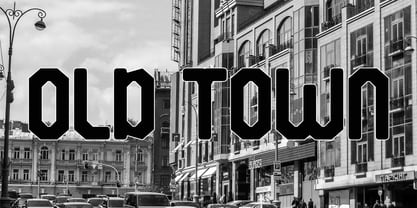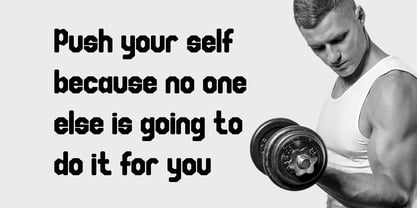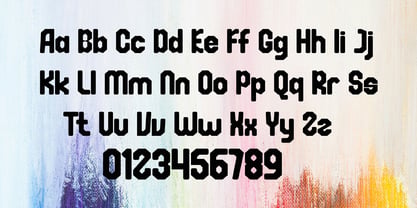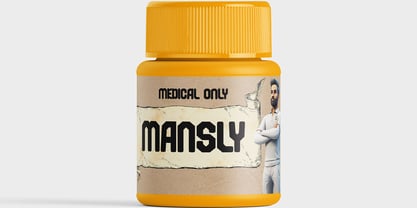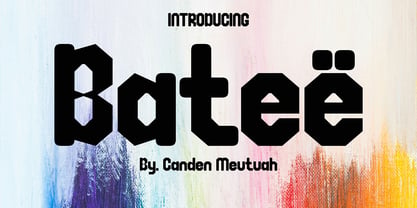
Bateë
by Canden Meutuah
The Bateë Font Family was designed by Canden Meutuah and published by Canden Meutuah. Bateë contains 1 styles. More about this family
Bateë is a stunning sports font featuring wide, bold letters and a modern, dynamic design. This font is ideal for high-speed car racing titles, running competitions, cycling, automotive game logos, monograms, and other sports-related projects that require bold typography. It is also suitable for posters, logo designs, editorial titles, album covers, and fashion branding. Bateë captures attention with its unique style and offers a contemporary and energetic text presentation. It excels in readability and size, creating an impression of power, thickness, and speed. Designed as a fast and dynamic font, Bateë stands out with its distinctive design. Explore its features and get it now.